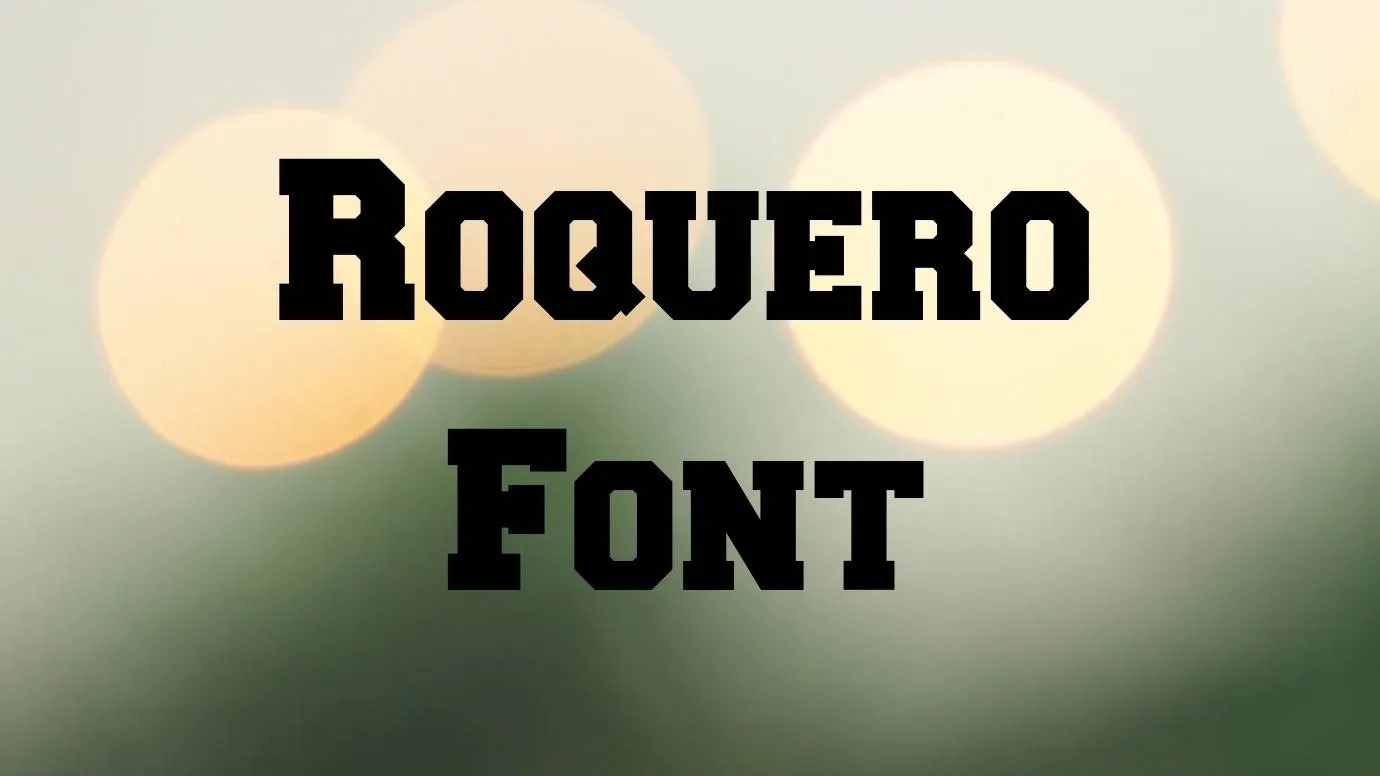
Roquero Font Family is a famous display-type font. This fantastic typeface was finally developed by Vava Aryanto and released by FallenGraphic Studio. This stunning typography comes in OTF file formats that have bold curved shape characters.
It was released with monogram themes that’s why it is helpful for various design purposes. This modern look font has distinctive look characters that are suitable for heading and titling purposes.
Roquero Font